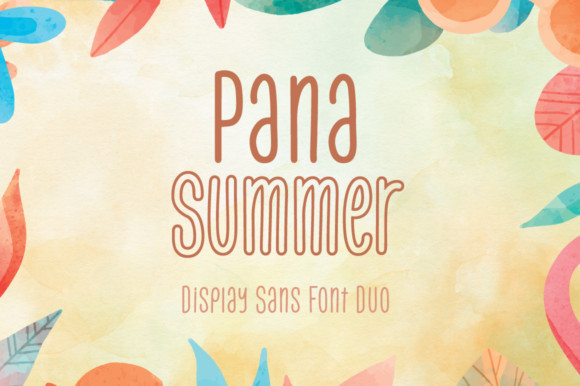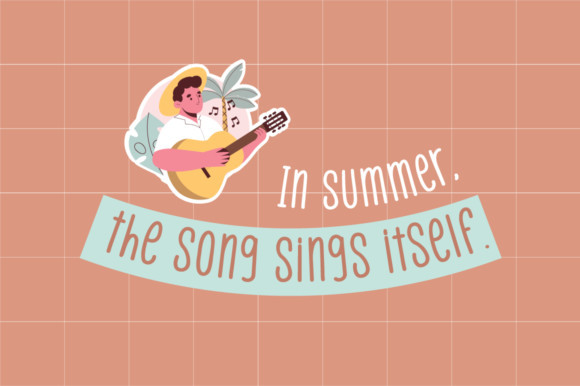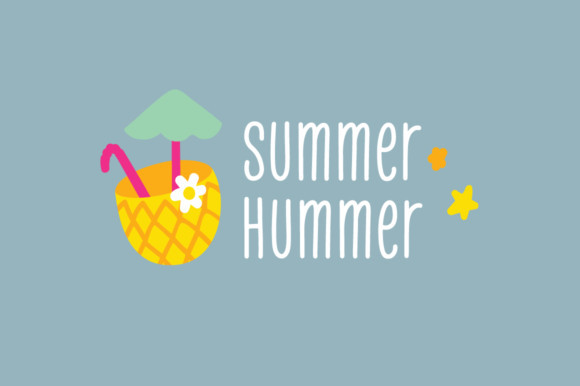
Pana Summer Font
Pana Summer is a cool and delicate duo font (display and sans serif). Simple but with a strong visual effect, this font will instantly make your creation more appealing than any others.